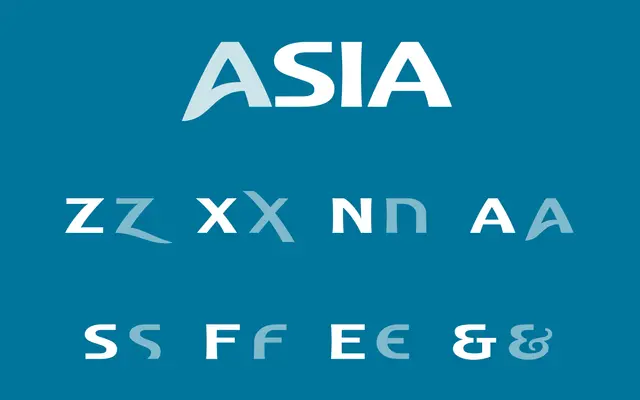
Logotypia Pro
FDI Type Foundry · Ralf Herrmann · 2004
A two-style display face by Ralf Herrmann built specifically for logotype and headline design, with alternate glyphs and connector ligatures to aid bespoke letterform combinations.
Released in 2004, Logotypia Pro is designed around one task: the construction of logotypes and headlines. It includes alternate glyphs for selected characters and ligatures formed through kerning or dedicated connector glyphs, features accessible only in fully OpenType-aware applications. Coverage spans Western Latin and the Russian ISO 8859-5 codepage, making it usable across both Latin and Cyrillic branding projects.
Explicitly designed for logotypes and headlines rather than text setting, with alternate glyphs, ligatures and connector glyphs that make it unsuitable for running text and firmly in the display category.